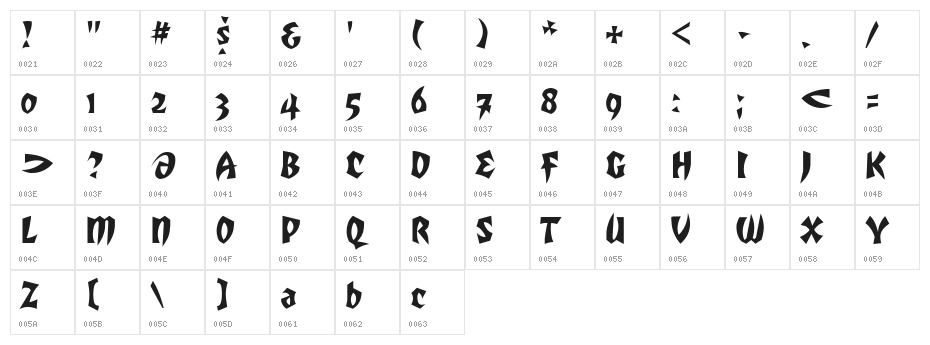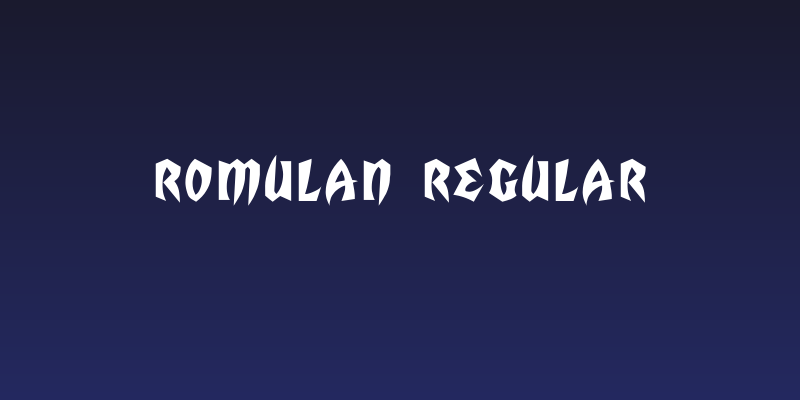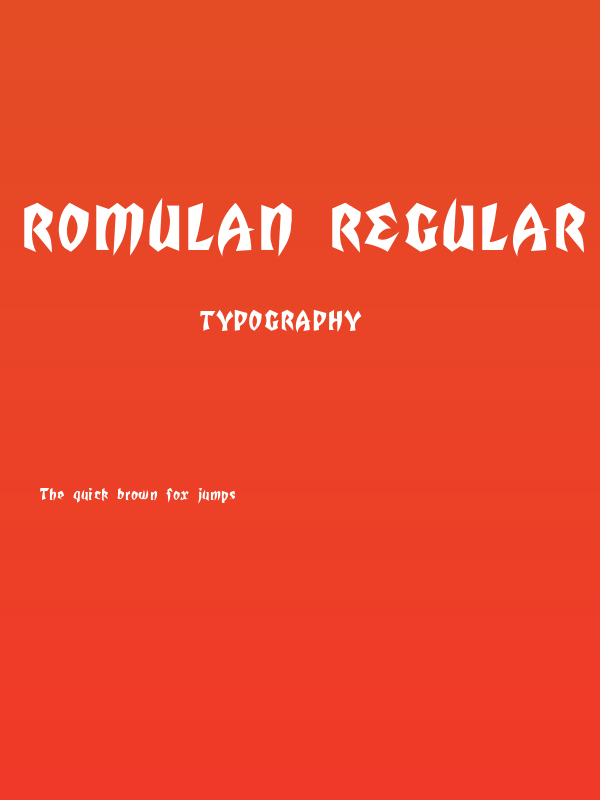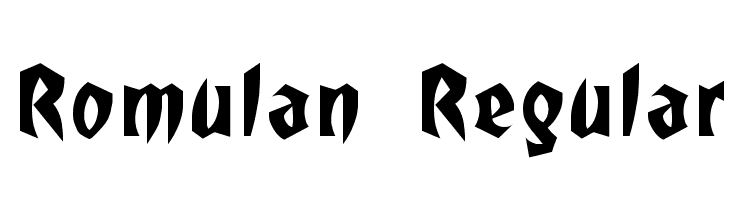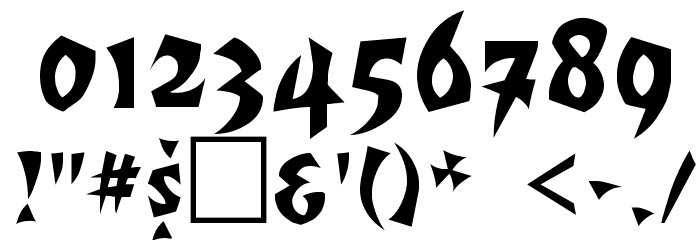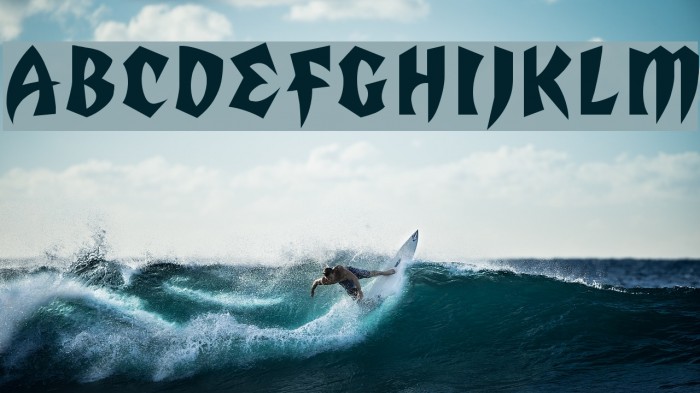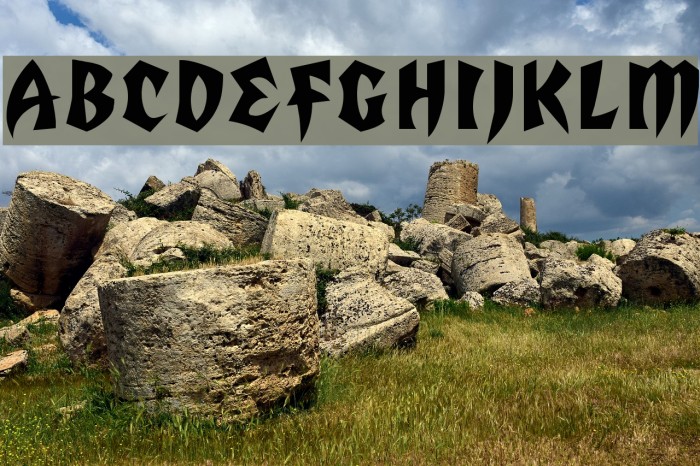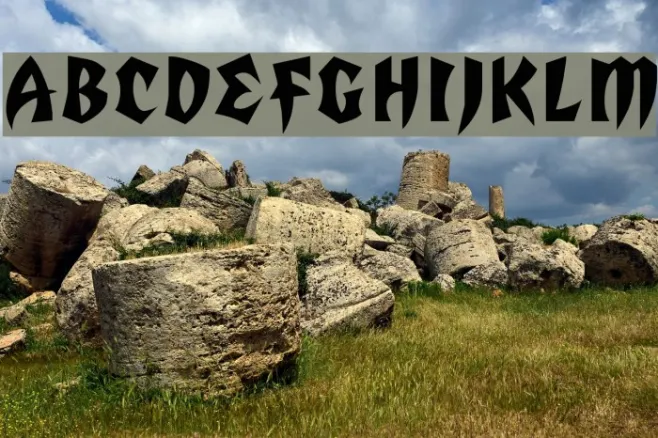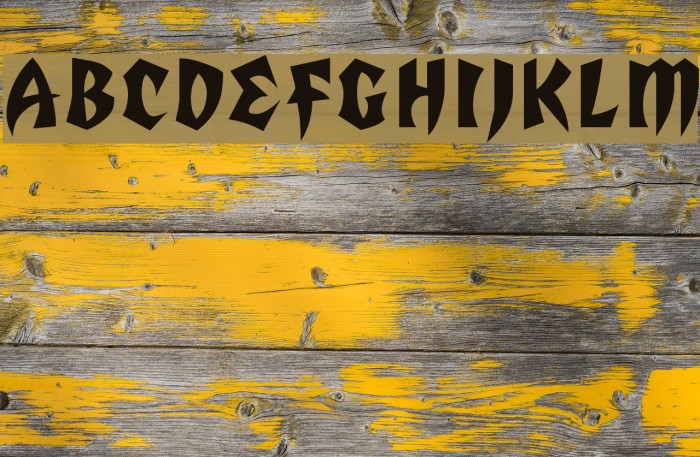
Romulan Regular Font
Romulan Regular Description
This font features a bold and angular design, characterized by sharp edges and pointed serifs that give it a distinct, aggressive appearance. The uppercase and lowercase letters maintain a consistent style, with exaggerated curves and angles that create a sense of movement and energy. The numbers and special characters follow the same design principles, ensuring uniformity across the typeface. This font's unique style makes it stand out, ideal for projects that require a strong visual impact.
| Overall Style | Futuristic, Aggressive |
| Proposed Projects | Ideal for sci-fi themed designs, video game titles, posters, and branding that requires a futuristic or aggressive look. |